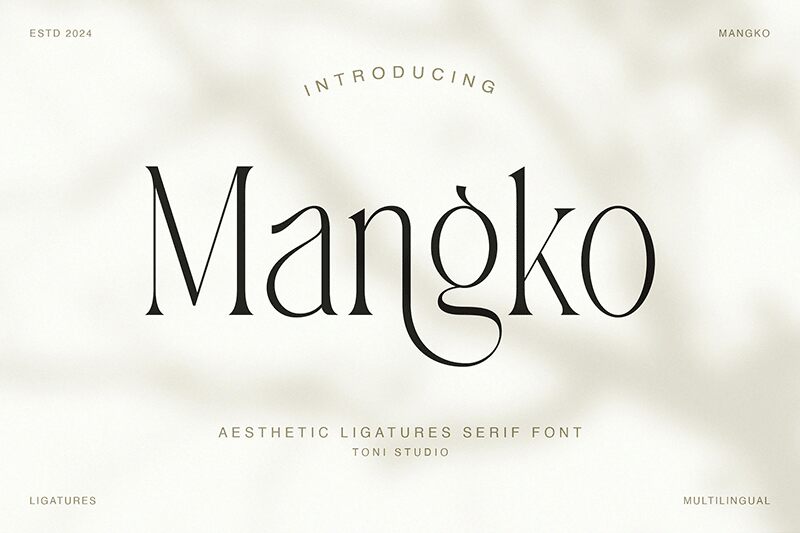
Mangko
Mangko typeface by ToniStudio is a striking example of serif typography that gives the impression of being very elegant due to its light form and condensed nature. It has been designed with clean lines and an attractive simplicity, which makes it ideal for any project where elegance and legibility are paramount. The unique style embodied in the Mangko font combines modern elements with traditional serif details.